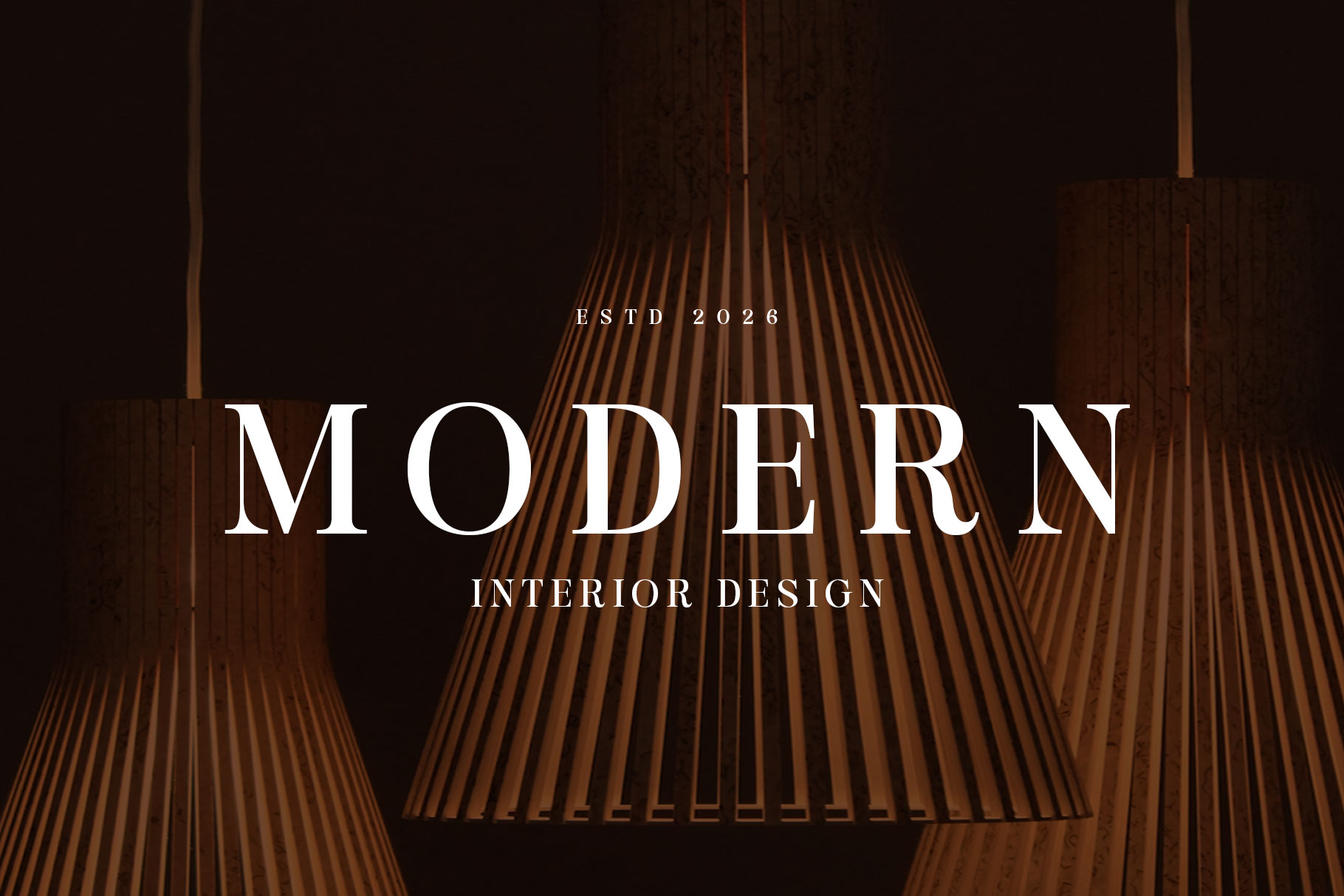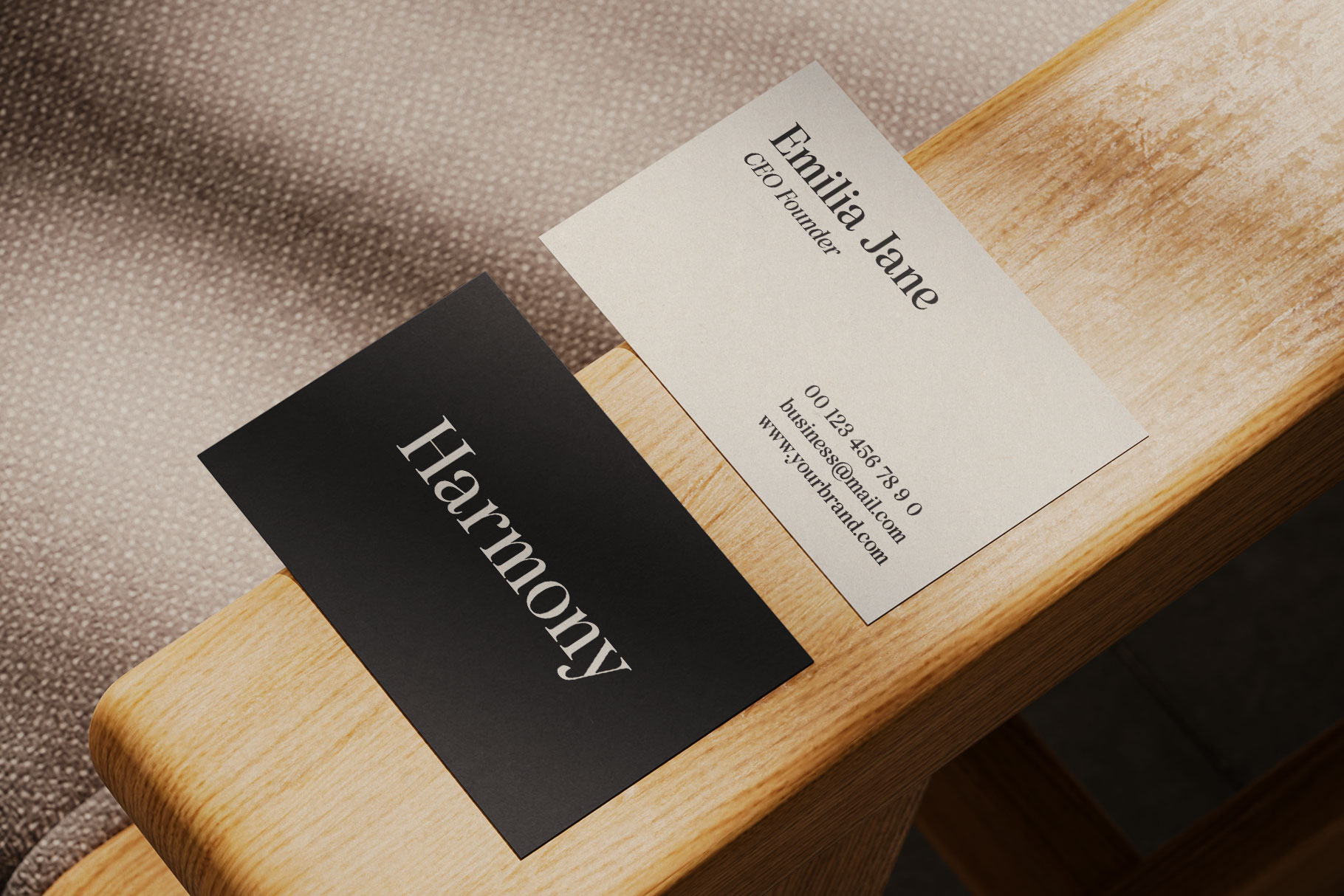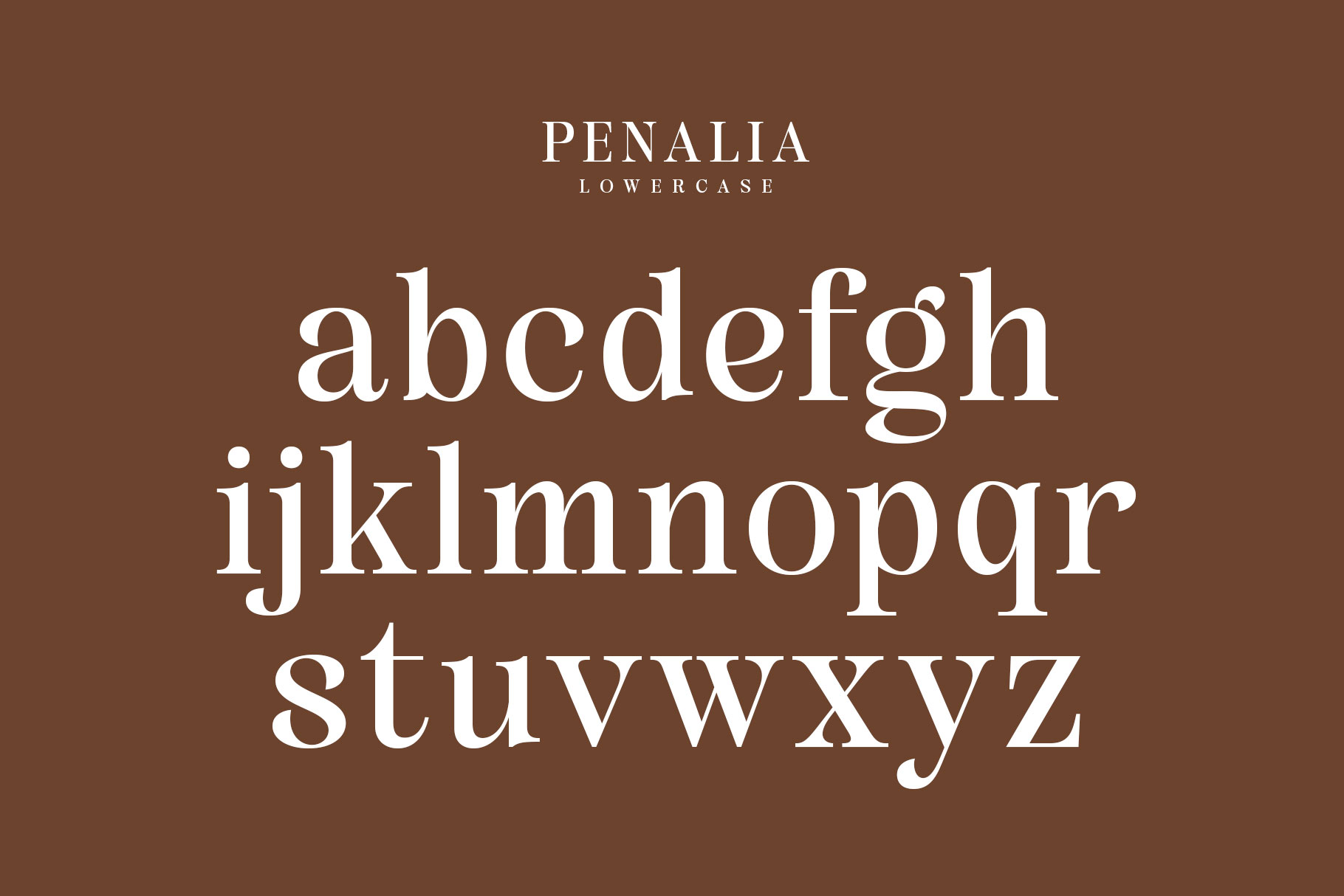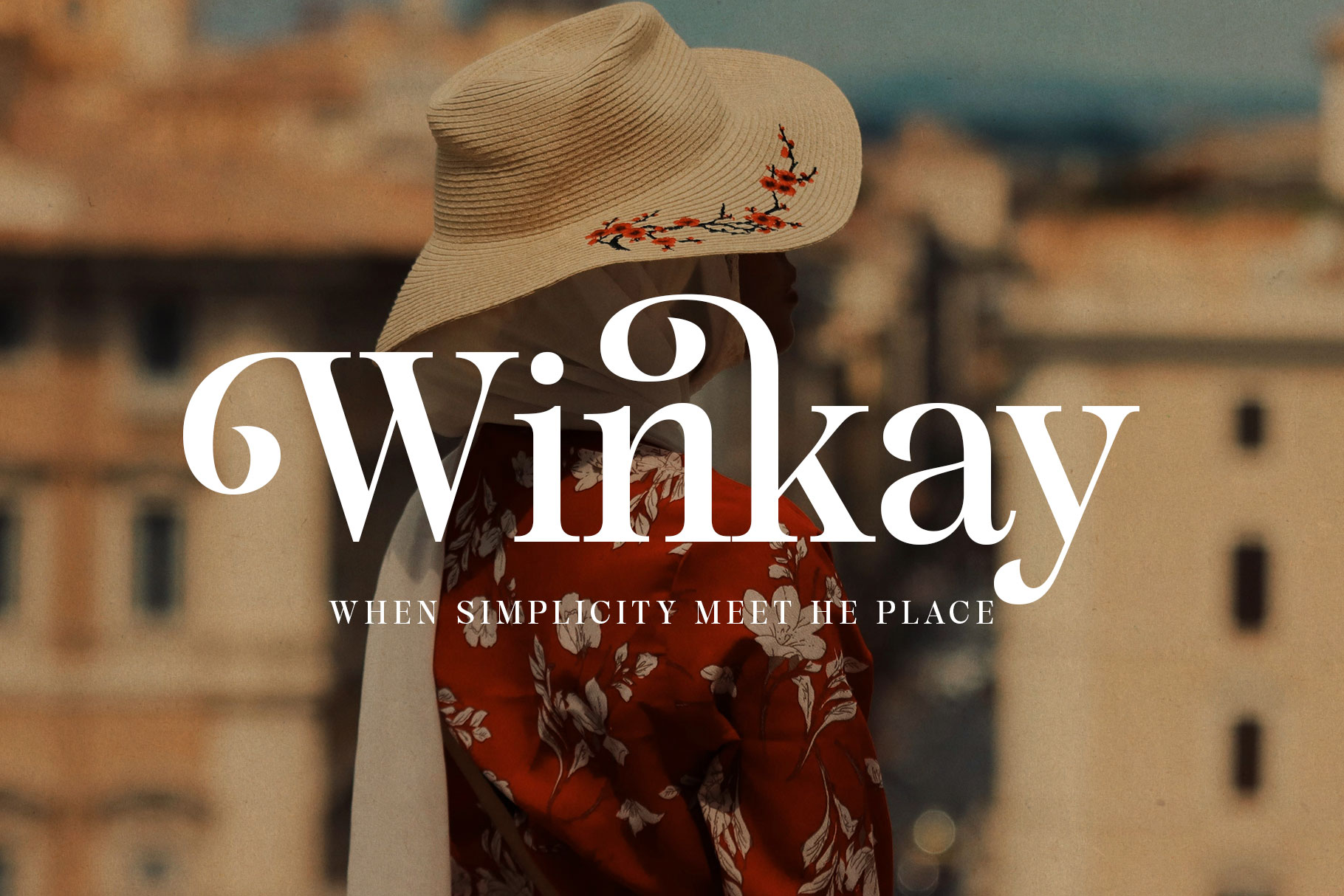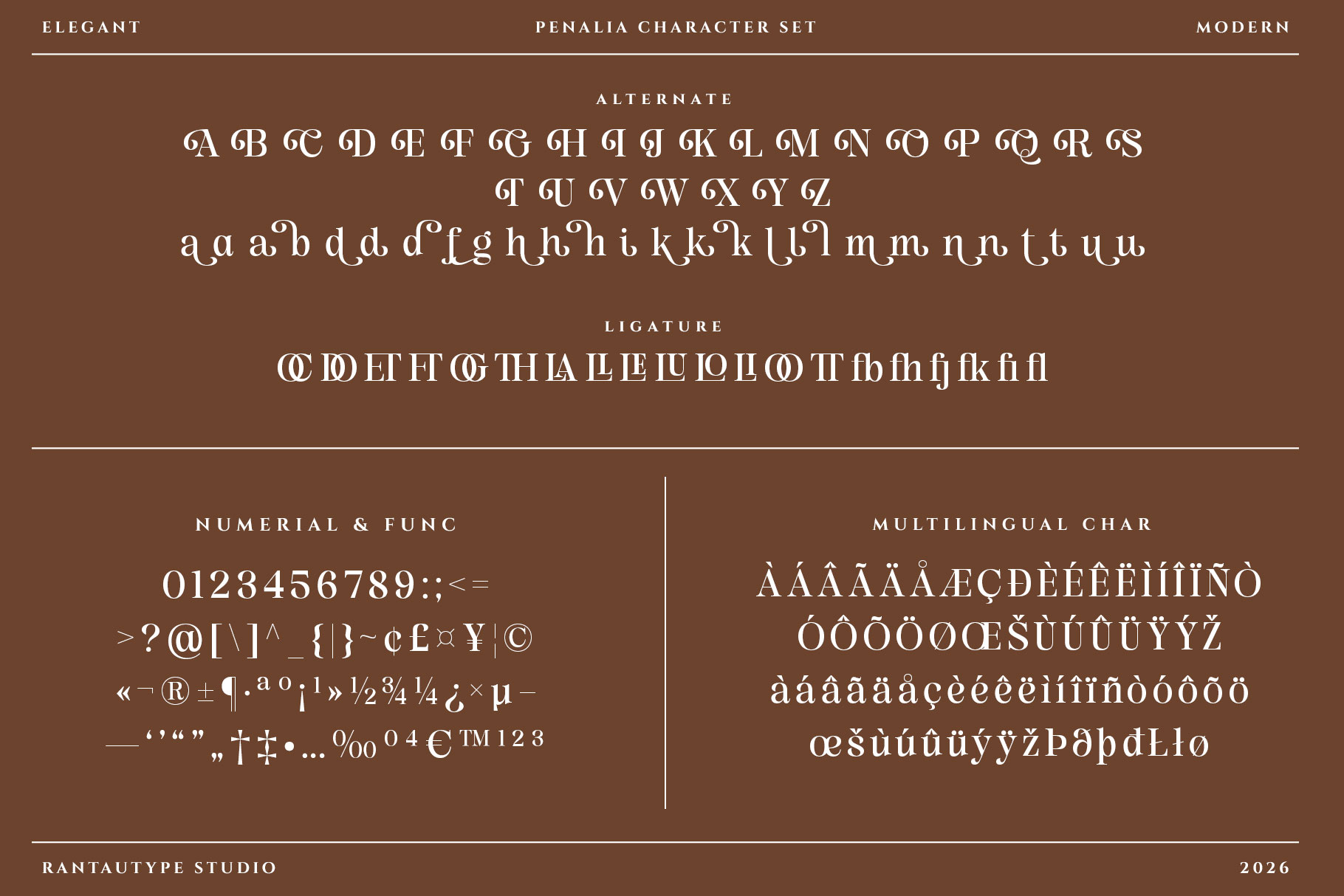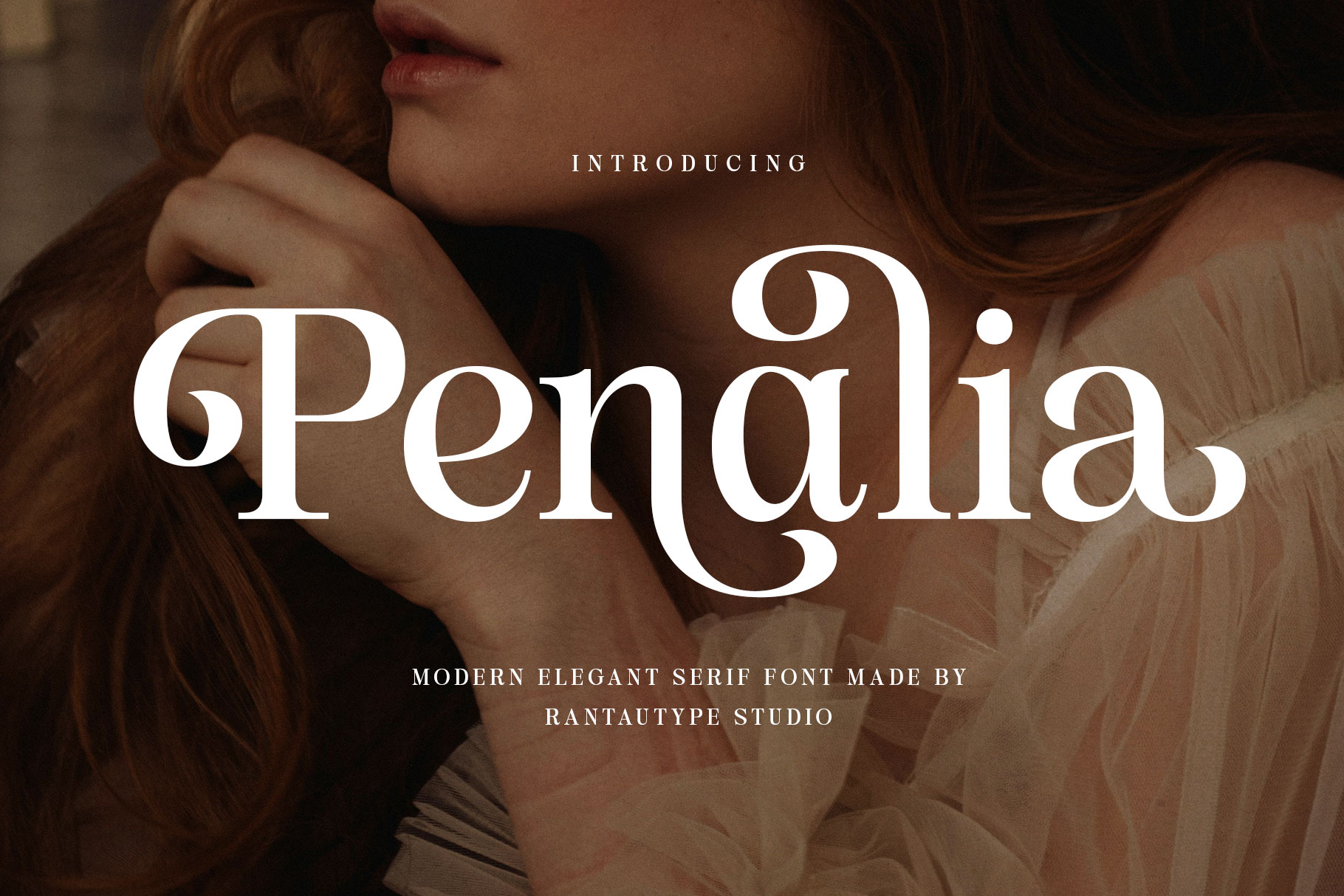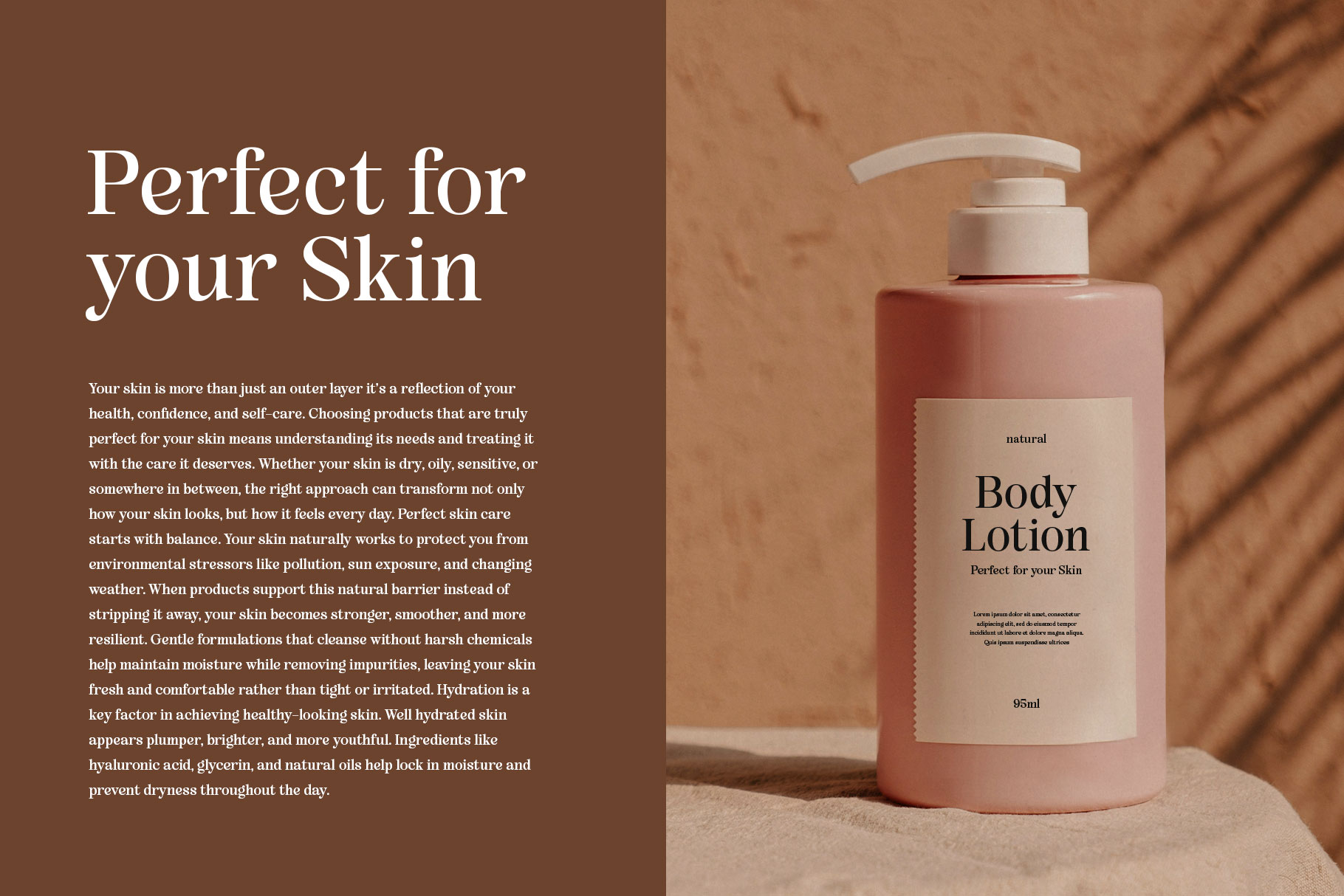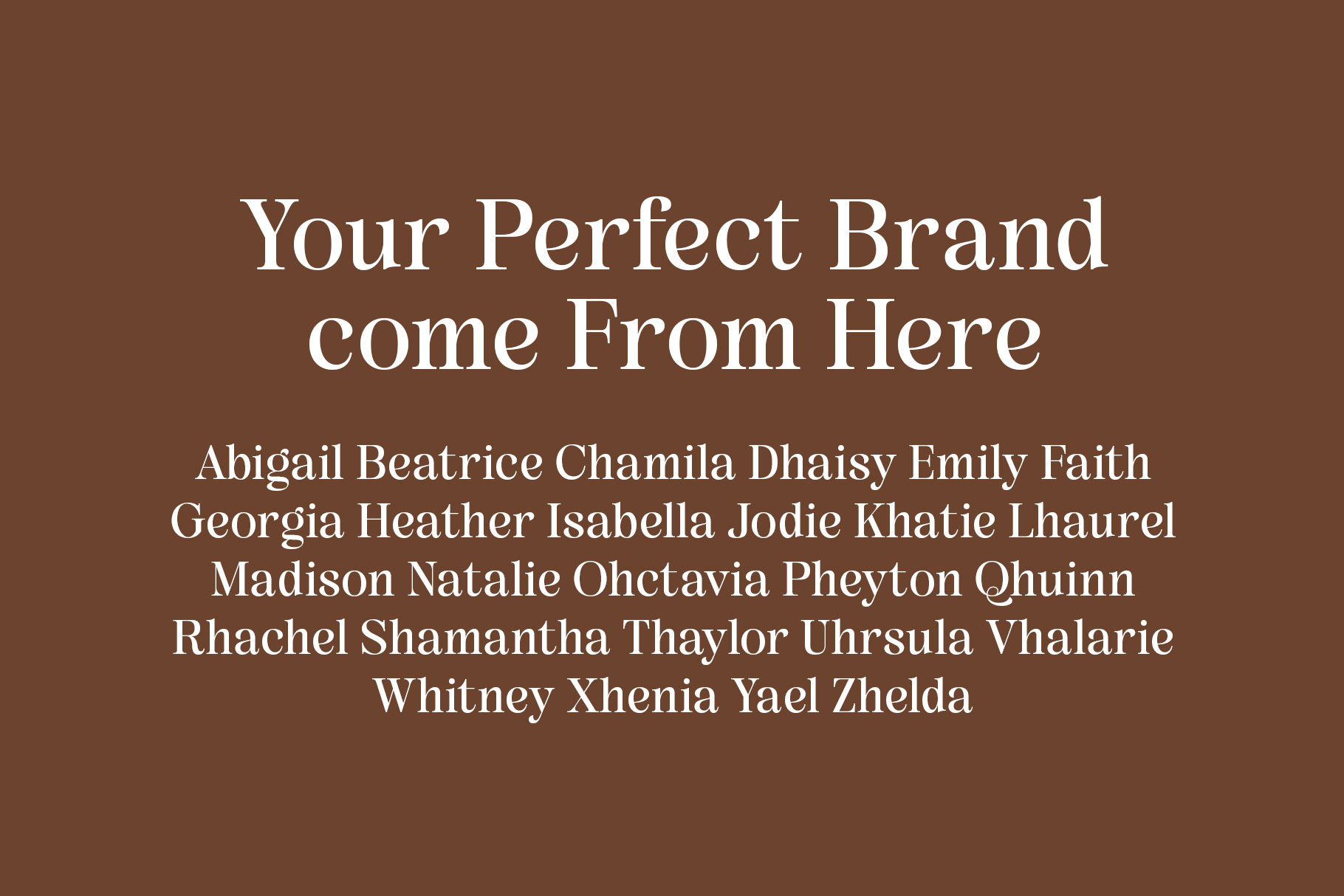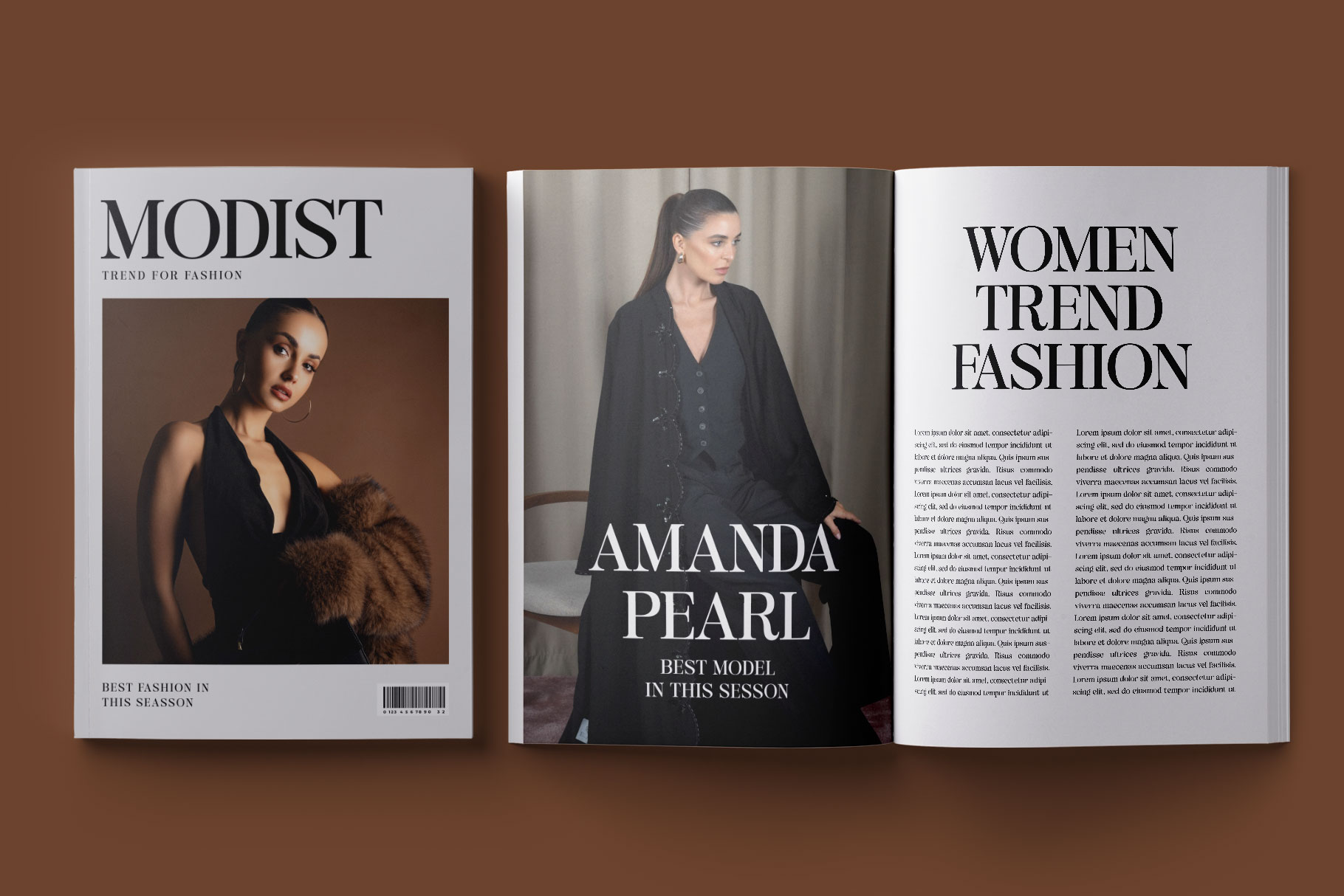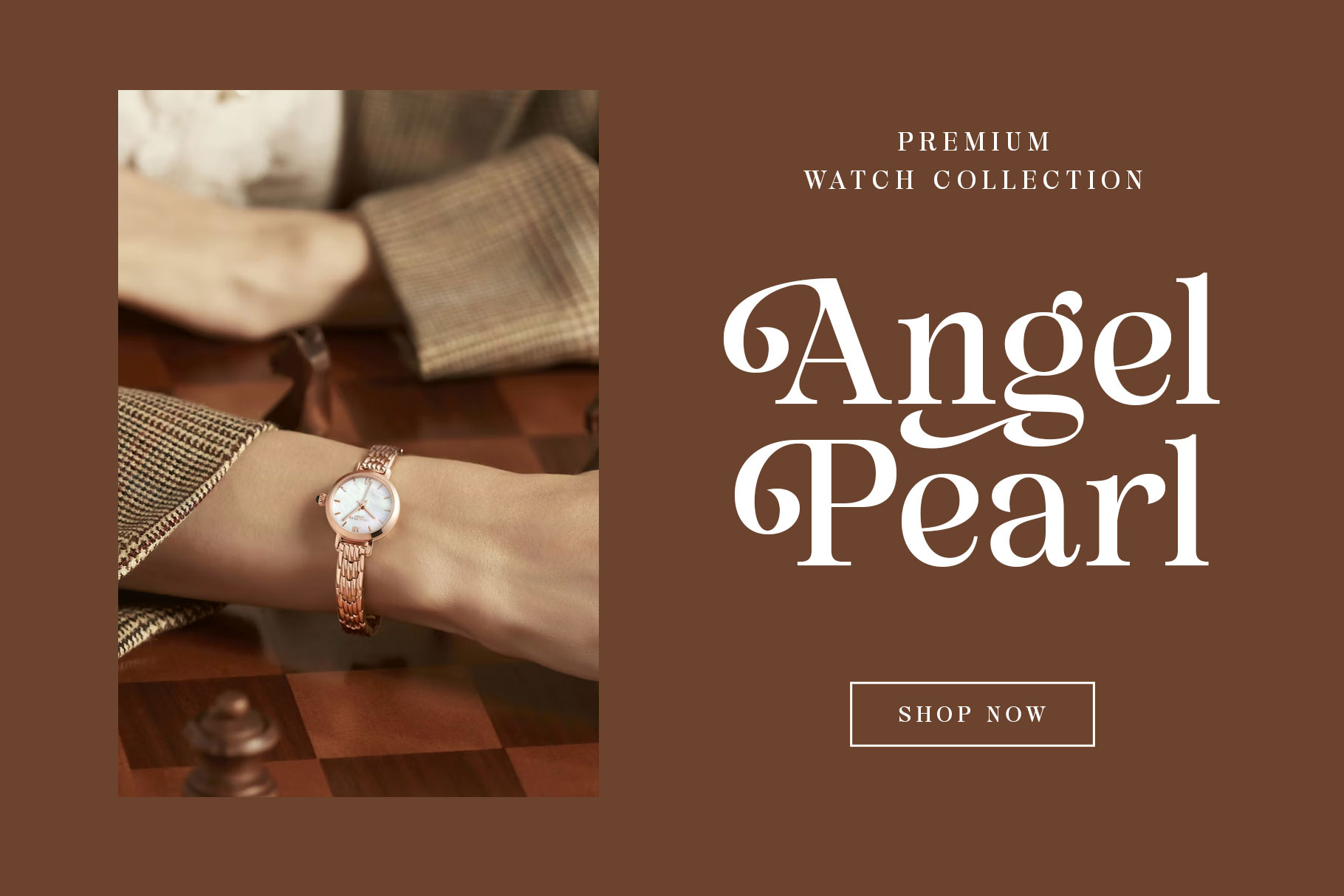
Penalia Modern Elegant Serif Font
Penalia is modern serif font embrace grace and fashionable. Penalia is a perfectly choice for any creative endeavor, creating, modern, lifestyle design such as logotype, title, cover, branding, invitations, wedding designs, display and magazine, social media posts, advertisements, printed quotes, product packaging, corporate brand, product designs, labels, photography, watermarks, special events and any other project with modern touch.